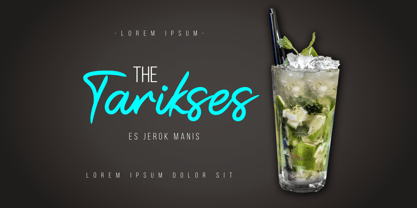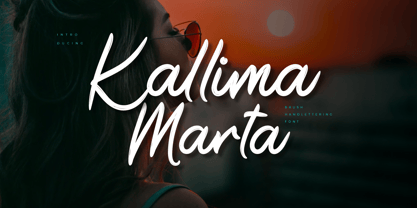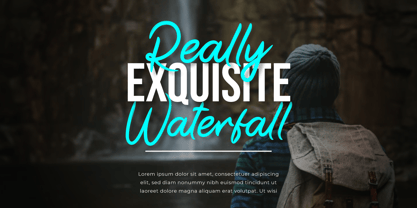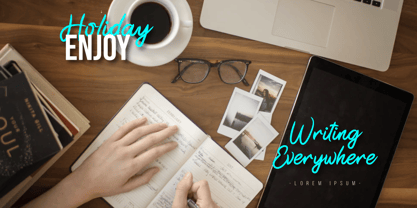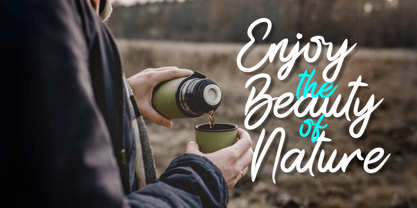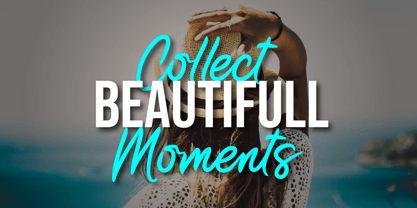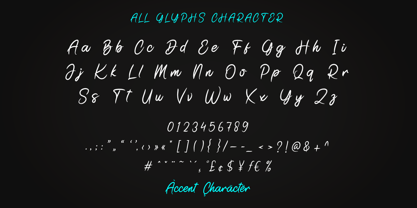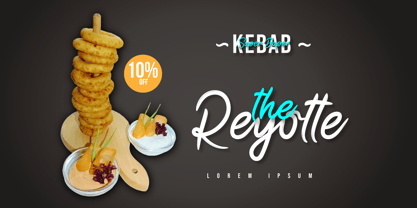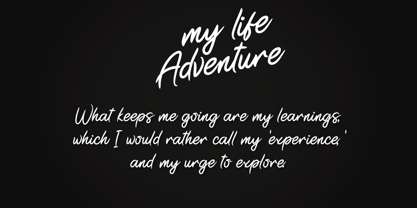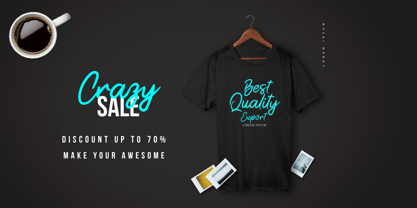
Kallima Marta
La familia tipográfica Kallima Marta fue diseñada por Lita Faolina y publicada por Product Type. Kallima Marta contiene 1 estilos.
Kallima Marta - Brush Handwritten Font invites you to immerse yourself in a world of timeless elegance and grace. With its delicate strokes and fluid curves, Kallima Marta exudes sophistication and charm, making it the perfect choice for projects that demand a touch of refinement. Whether you're designing luxurious wedding invitations, crafting romantic poetry, or creating delicate branding for high-end products, Kallima Marta adds a sense of beauty and grace to every design. Get ready to captivate your audience and elevate your creations with Kallima Marta - the font that's as enchanting as a blooming flower.